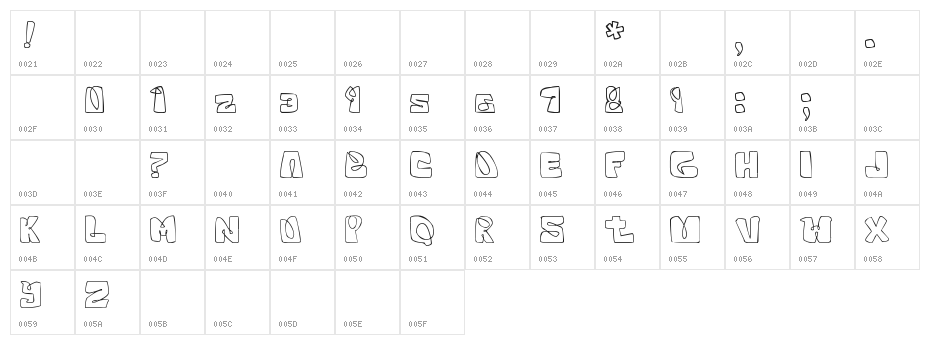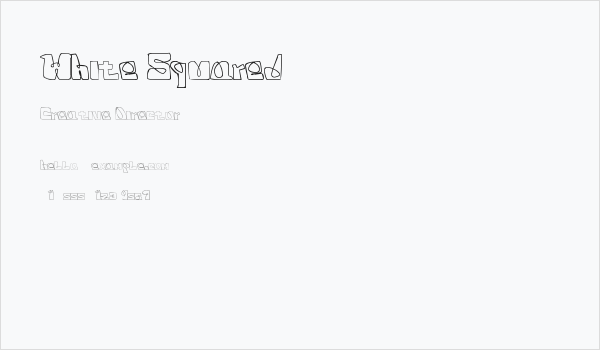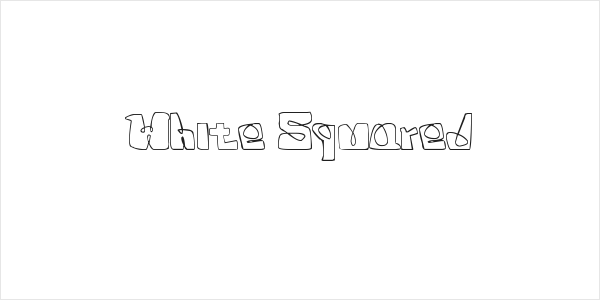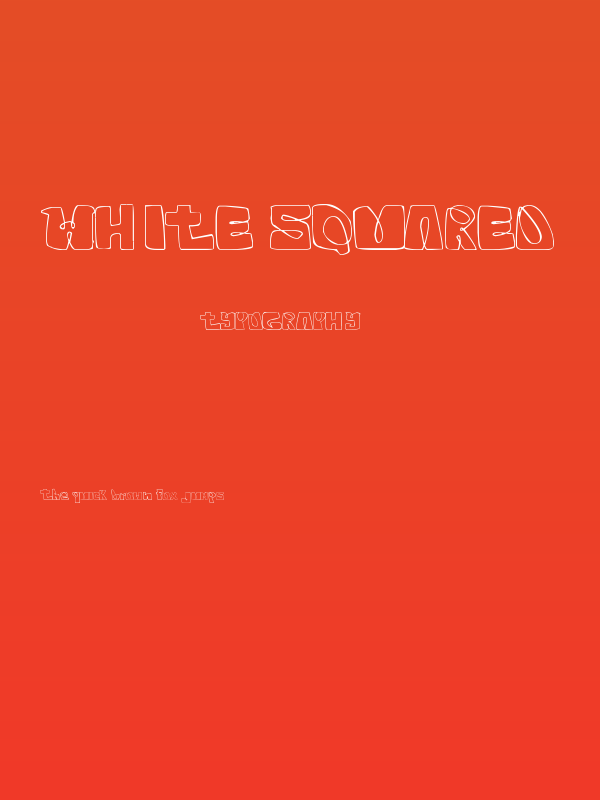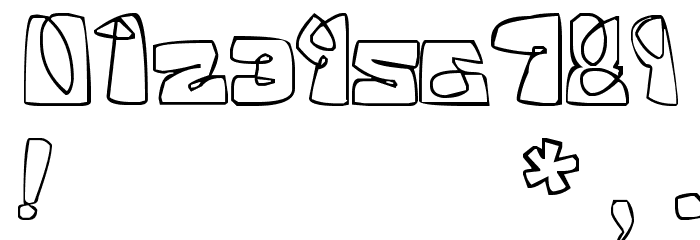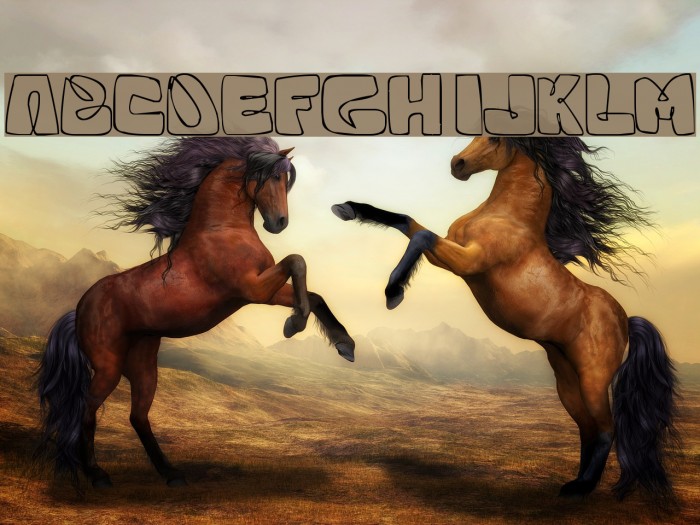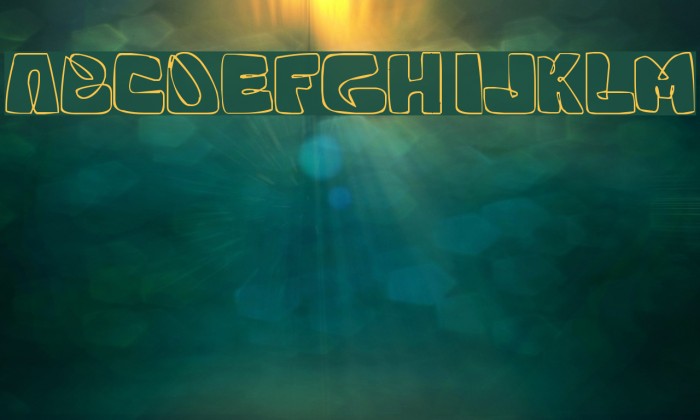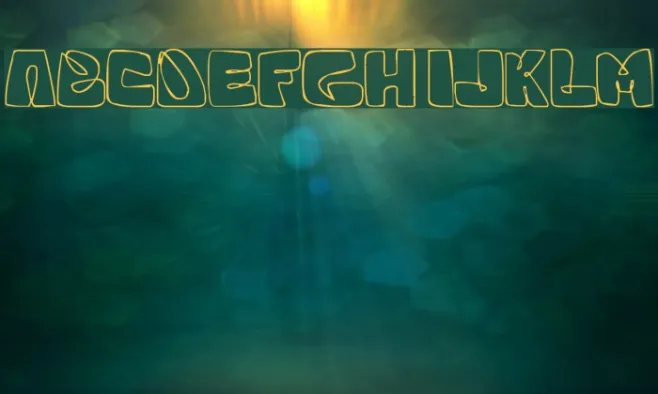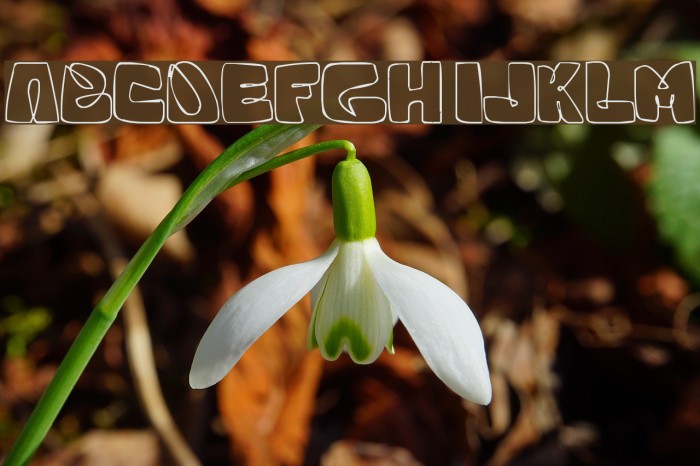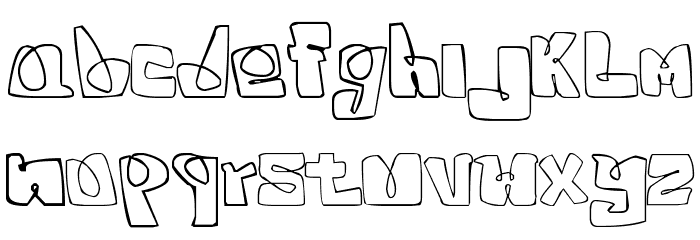
White Squared Font
White Squared Description
This font features a playful and abstract design, with each character enclosed in a square-like outline. The letters are bold and have a hand-drawn appearance, giving them a unique and artistic flair. The uppercase and lowercase letters maintain a consistent style, with rounded edges and a slightly irregular shape that adds to the whimsical nature of the font. Numbers and special characters follow the same design principles, ensuring a cohesive look across all elements. The overall style is modern and decorative, making it suitable for creative projects.
| Overall Style | Modern, Decorative |
| Use Case | Headlines, Logos, Creative projects |
| Proposed Projects | Ideal for children's books, creative posters, art projects, and playful branding. |